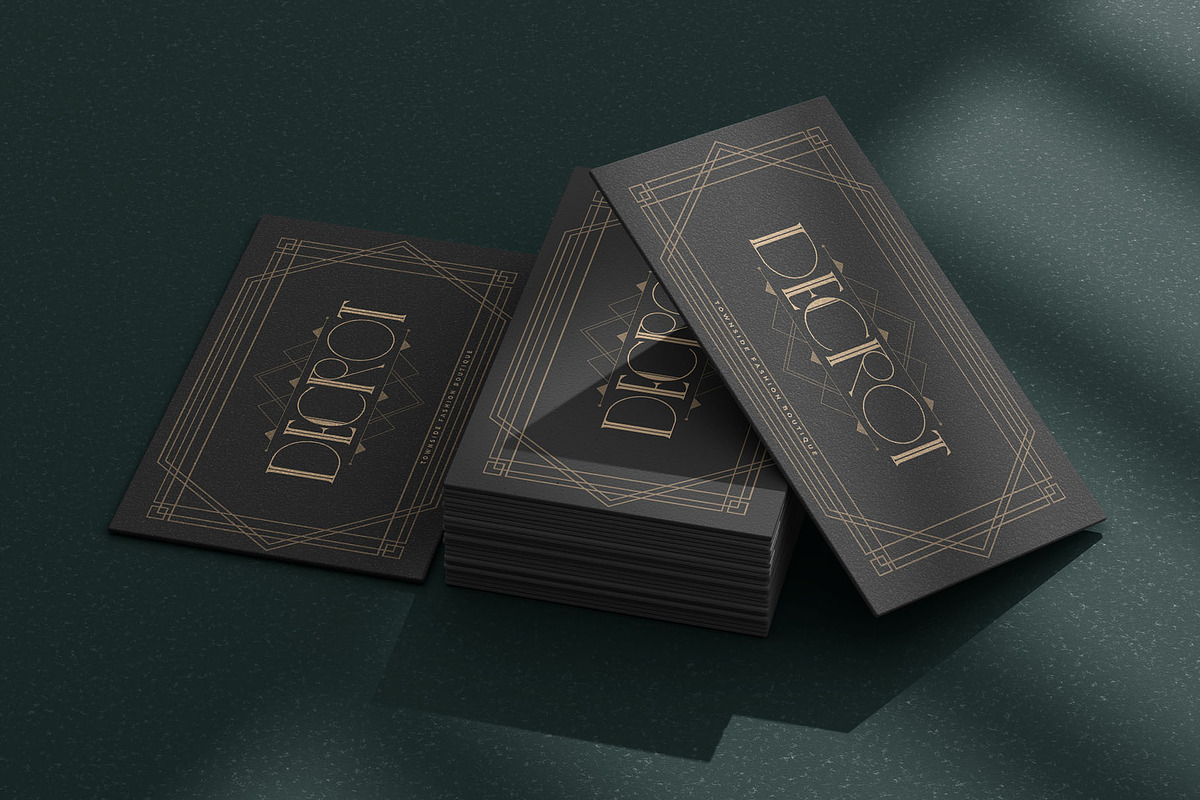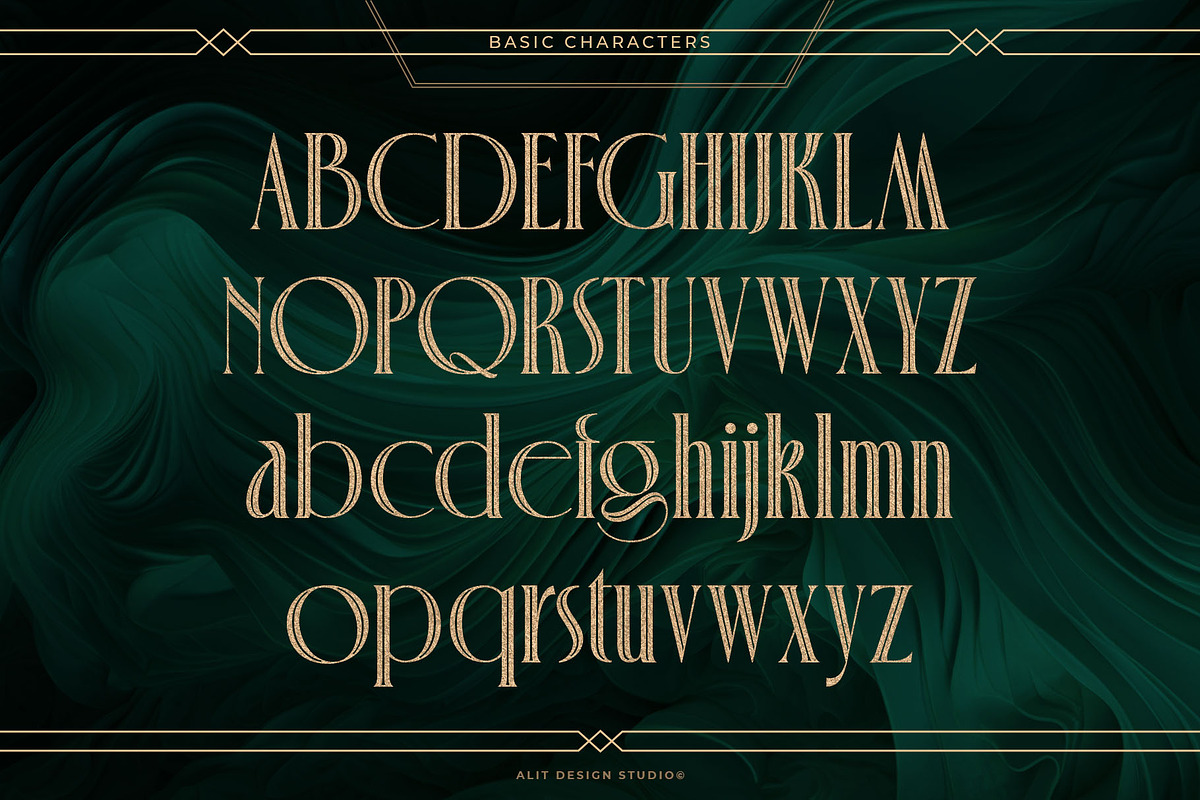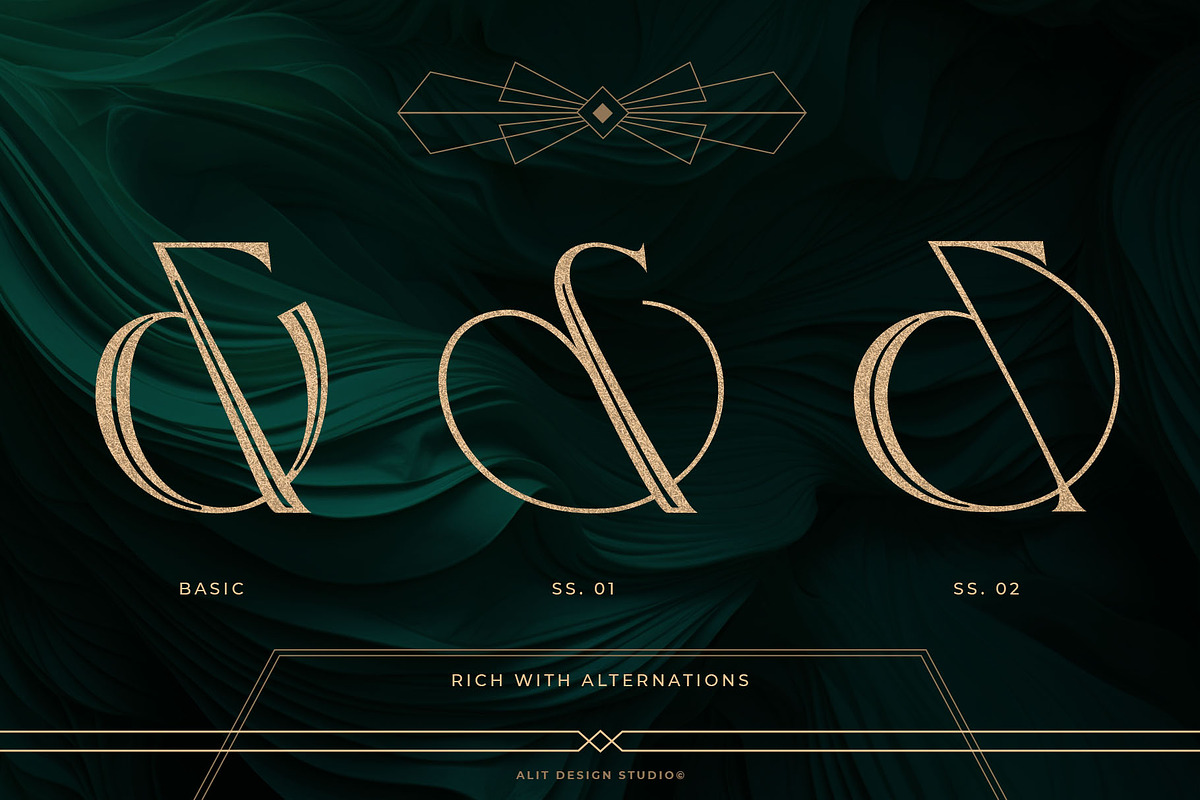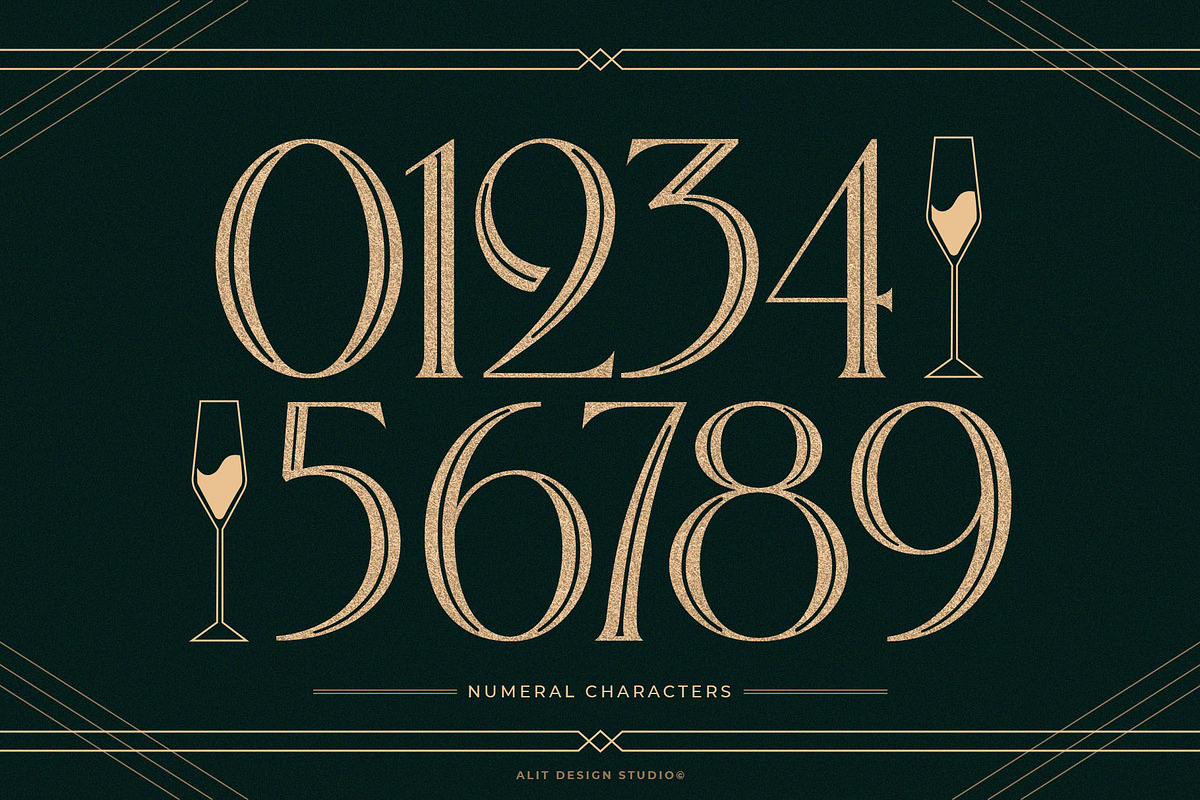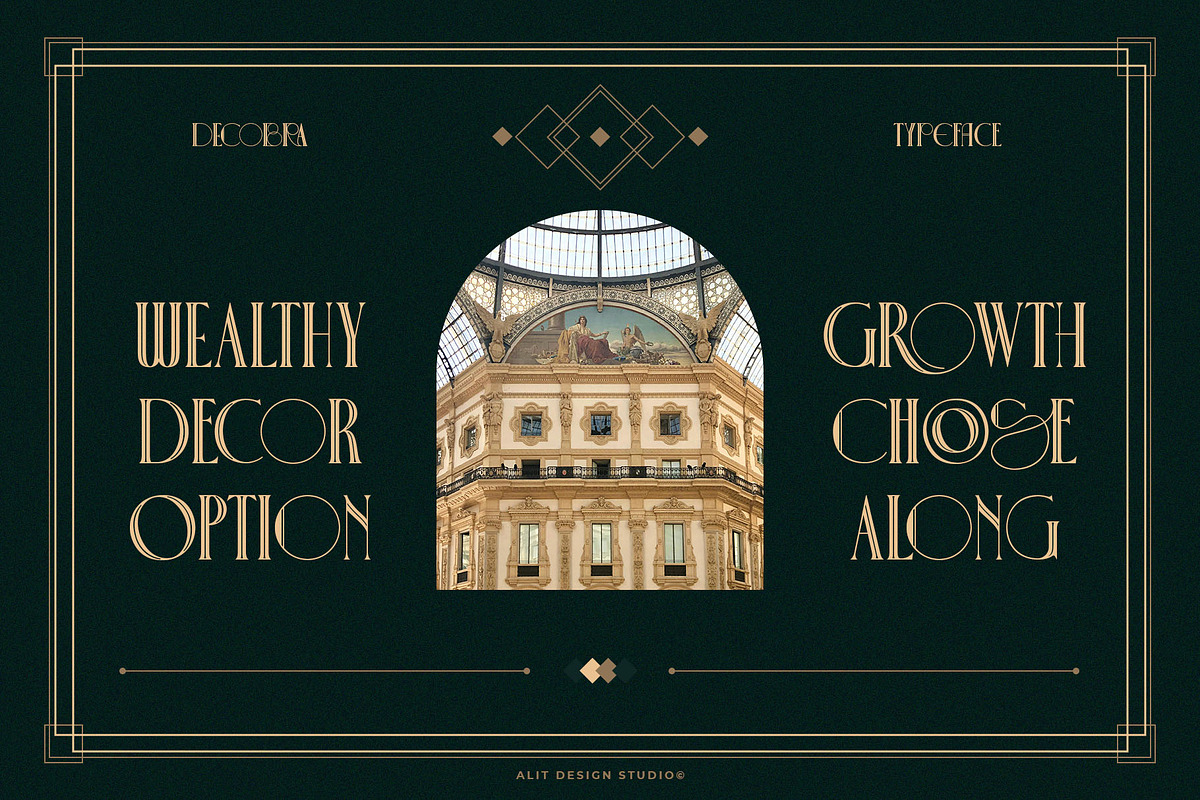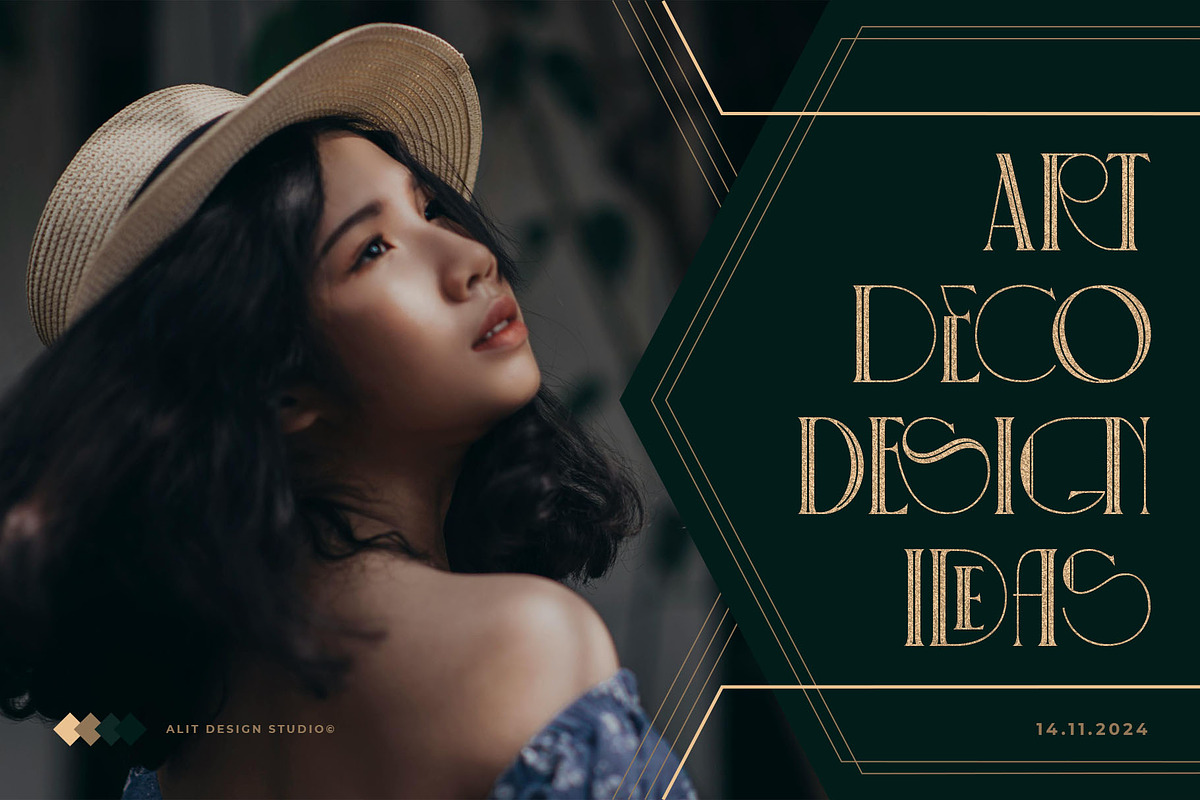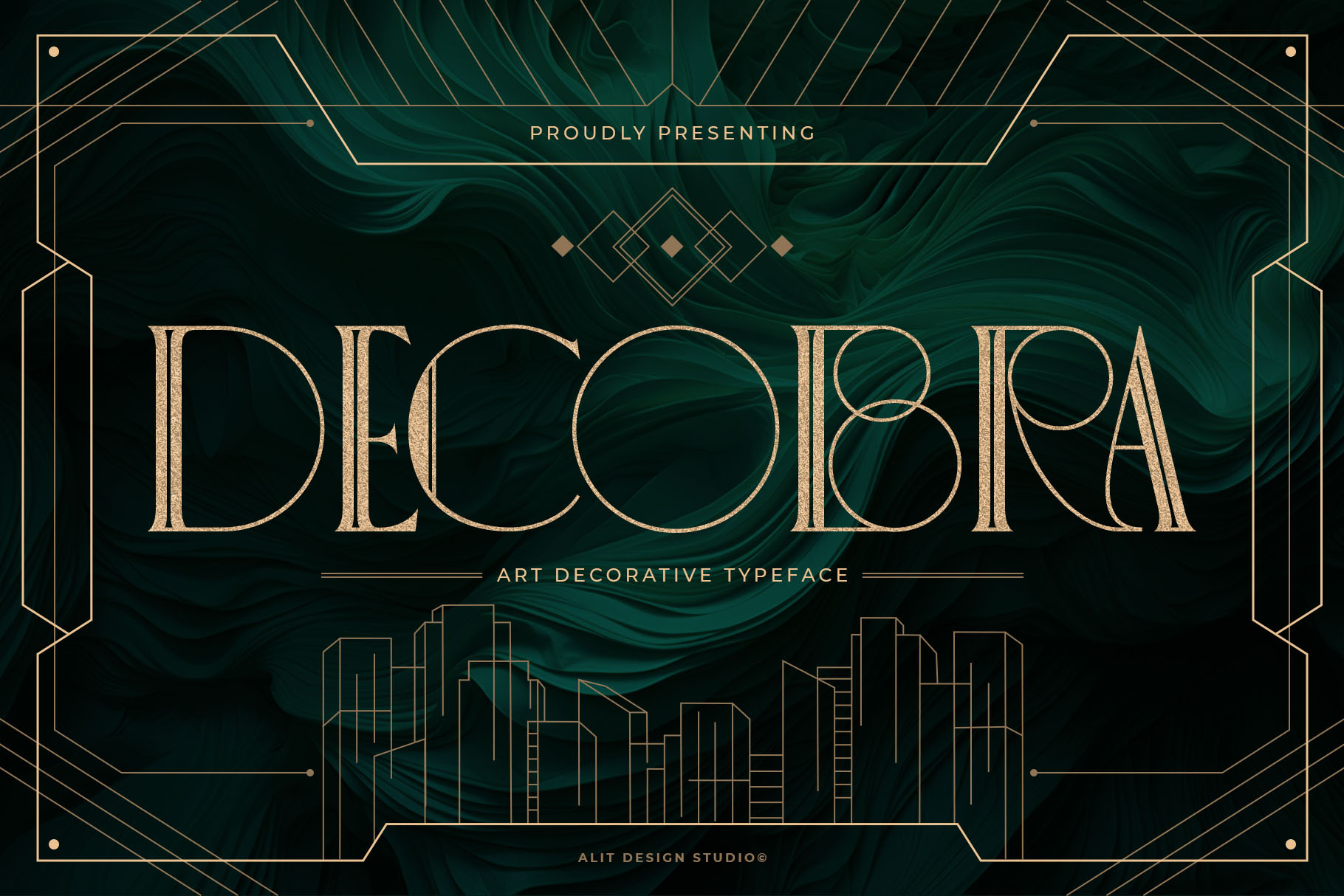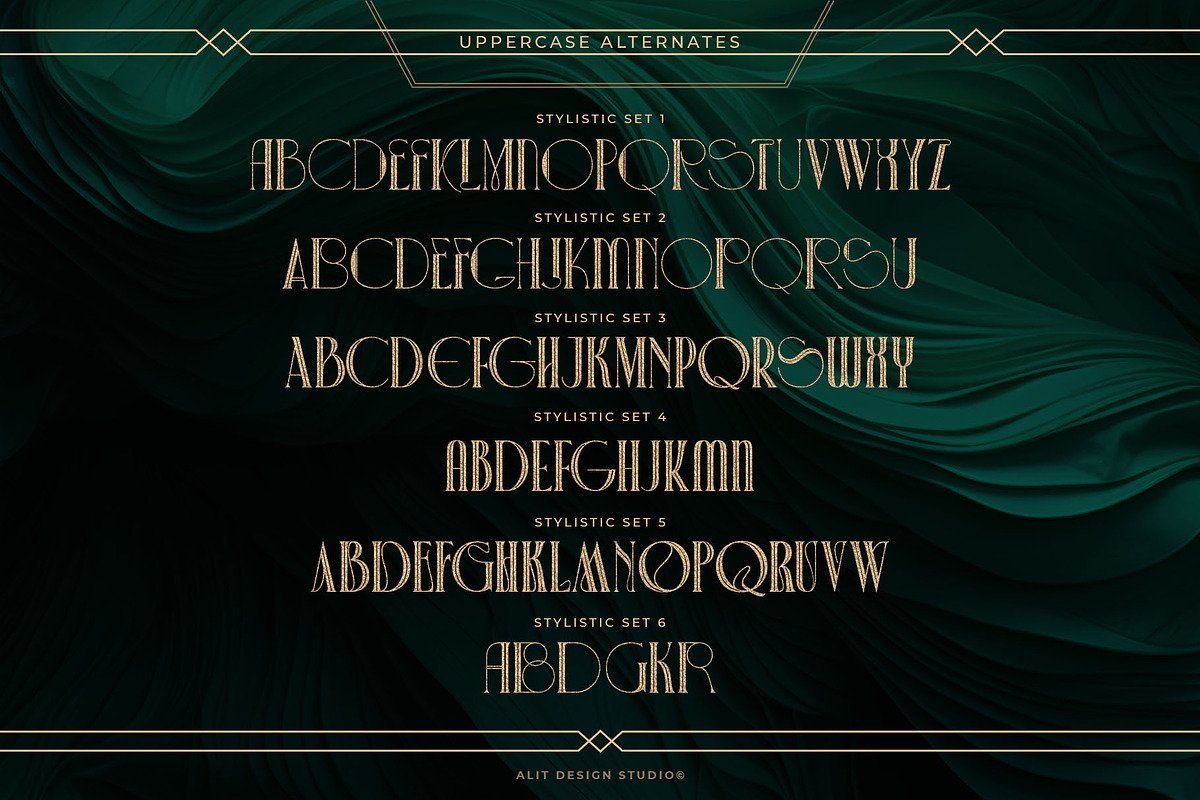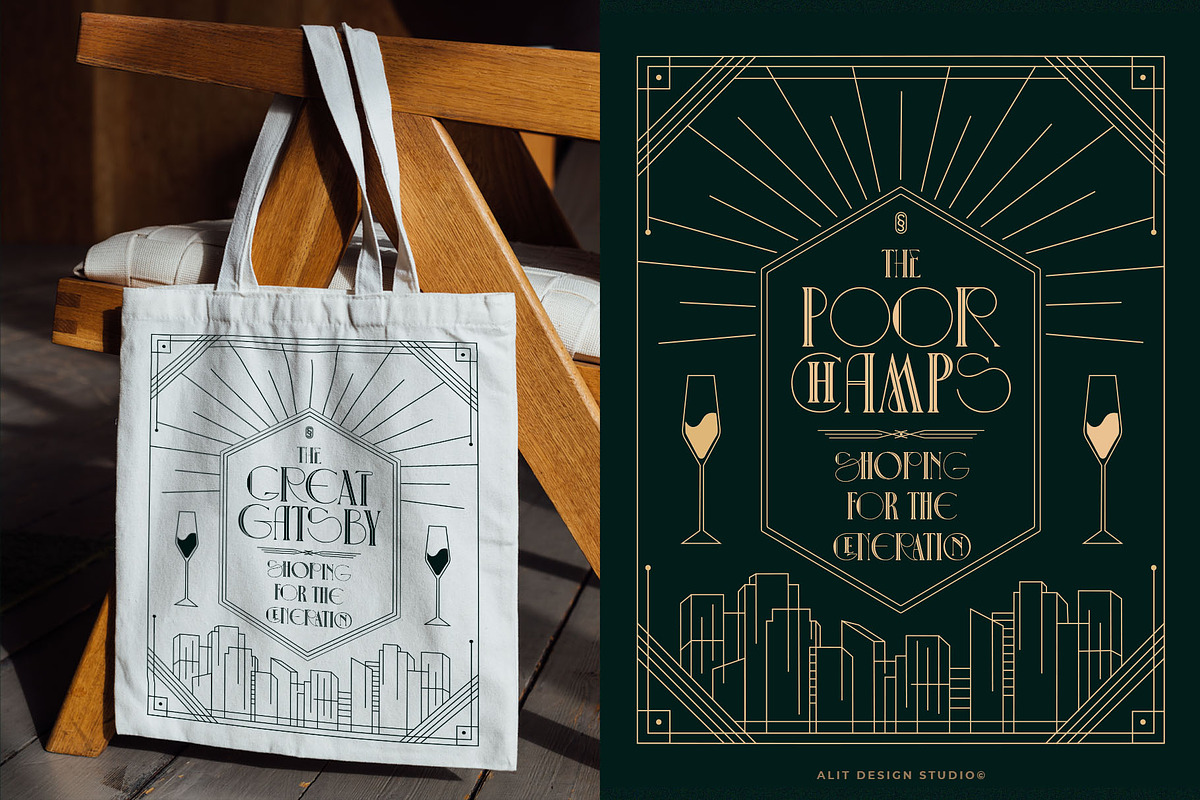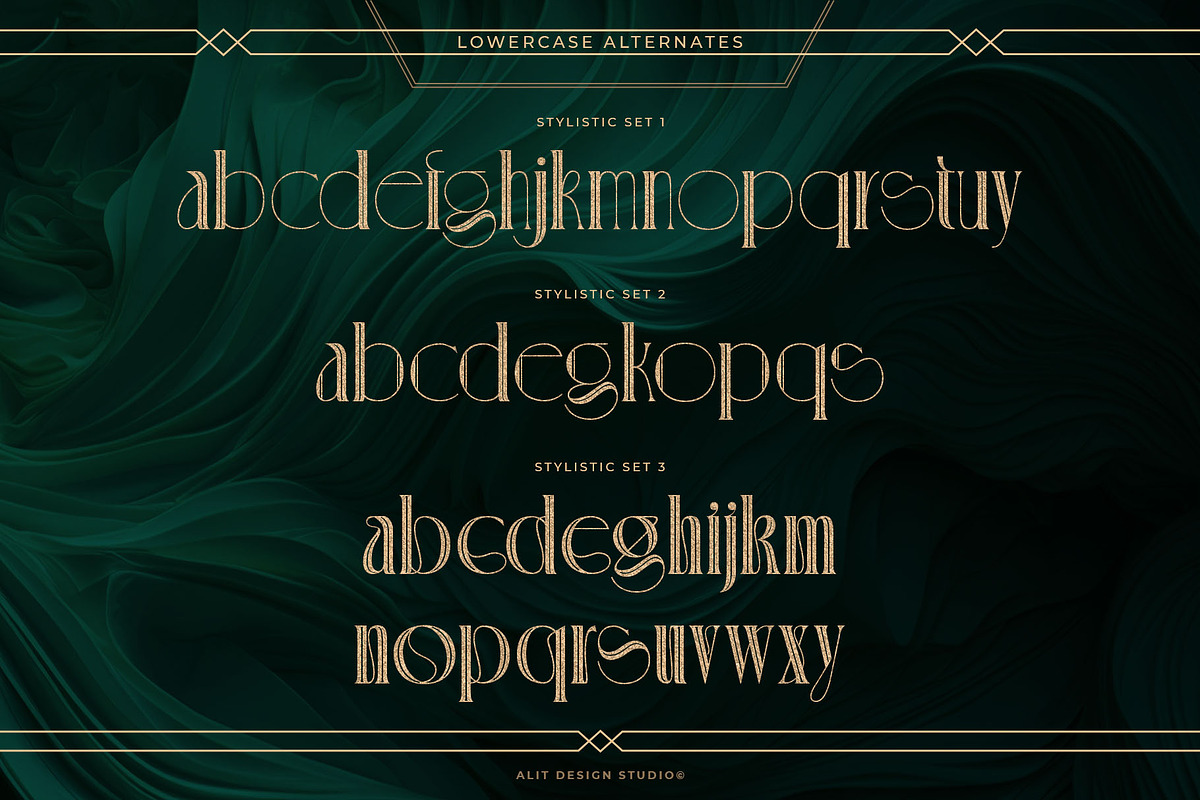
Decobra Art Deco Font
Decobra Art Deco Typeface
Step into the golden era of design with Decobra, a one-of-a-kind Art Deco typeface that exudes elegance and modern sophistication. Perfectly balancing dynamic thick and thin strokes, Decobra’s charm lies in its striking two-line body, making it an extraordinary choice for vintage-inspired yet contemporary projects.
Features That Inspire Creativity:
- 809 Characters: A rich collection of glyphs gives you the freedom to create captivating text compositions.
- Extensive Alternatives: Unlock creative possibilities with multiple stylistic sets that let you customize every letter.
- Ligatures: Seamlessly blend characters for visually stunning typography.
- Swashes: Add flair and personality with decorative flourishes to elevate your designs.
- Multilingual Support: From Latin-based alphabets to extended accents, Decobra speaks to a global audience with flawless precision.
Whether you're crafting luxurious branding, art deco-inspired posters, elegant invitations, or editorial layouts, Decobra Art Deco Typeface ensures your design leaves an unforgettable impression.
Rediscover the timeless glamour of Art Deco with Decobra—a typeface that bridges the past and future in every stroke.